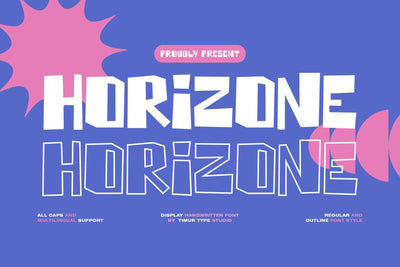
Horizone - Display Handwritten Font
Horizone is a Display Handwritten Font
This font resembles handwritten elegance meets versatility. Unique style and shape to elevate your designs with the perfect blend of regular and outline styles, ideal for crafting captivating titles, logos, and more
Horizone Font also supports multilingualism.